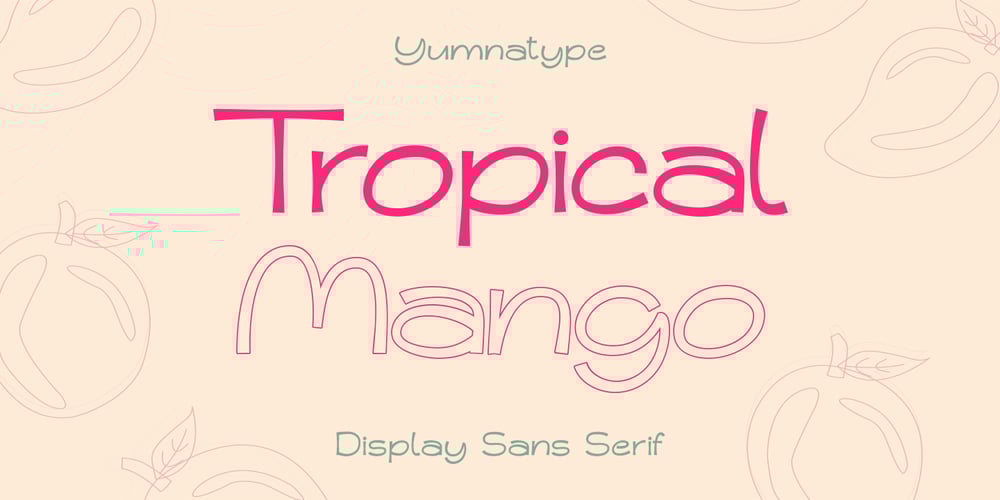
Tropical Mango Font Family was designed by Donis Miftahudin and published by Yumna Type. Tropical Mango contains 2 styles and family package options. Tropical Mango is a refreshing sans serif display font that embodies the vibrant energy of a tropical paradise. Each letter in Tropical Mango is meticulously crafted with rounded shapes, giving it an inviting appearance reminiscent of the gentle curves of a ripe mango. The weight of the font is not thick, adding to its airy and contemporary feel, while still maintaining a strong presence on the page. What sets Tropical Mango apart is its two versions – Regular and Outline. The Regular version offers a clean and modern look while the Outline version adds a touch of elegance. In addition, enjoy the features here.Features: Ligatures Stylistic Sets Multilingual Supports PUA Encoded Numerals and Punctuations Tropical Mango fits in headlines, logos, posters, flyers, branding materials, print media, editorial layouts, and many more designs. Find out more ways to use this font by taking a look at the font preview.Thanks for purchasing our fonts. Hopefully, you have a great time using our font. Feel free to contact us anytime for further information or when you have trouble with the font. Thanks a lot and happy designing.